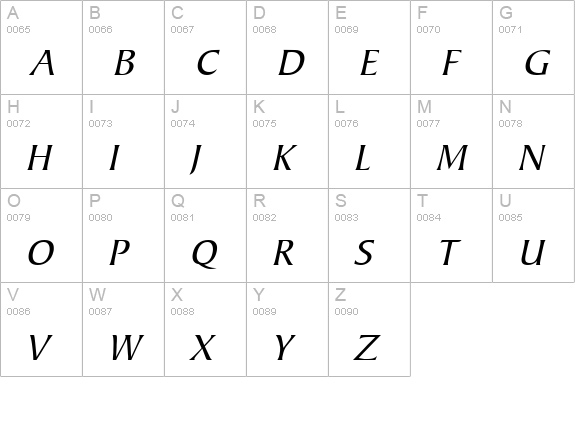
Barrett Italic Font Details
Barrett Italic is a distinctive, italic variant in the Barrett typeface family \xE2\x80\x94 well suited to design and typography projects.
Barrett Italic font is a modern and elegant typeface that exudes sophistication and style. With its sleek lines and graceful curves, this font is perfect for adding a touch of class to any project. Whether you're designing a wedding invitation, crafting a logo, or creating a poster, Barrett Italic will elevate your design to the next level. What's even better is that Barrett Italic is available for free download at FontsMarket.com. So you can easily access this stunning font and incorporate it into your projects without any cost. Don't miss out on the opportunity to enhance your designs with the beauty of Barrett Italic. Download it today and let your creativity shine!